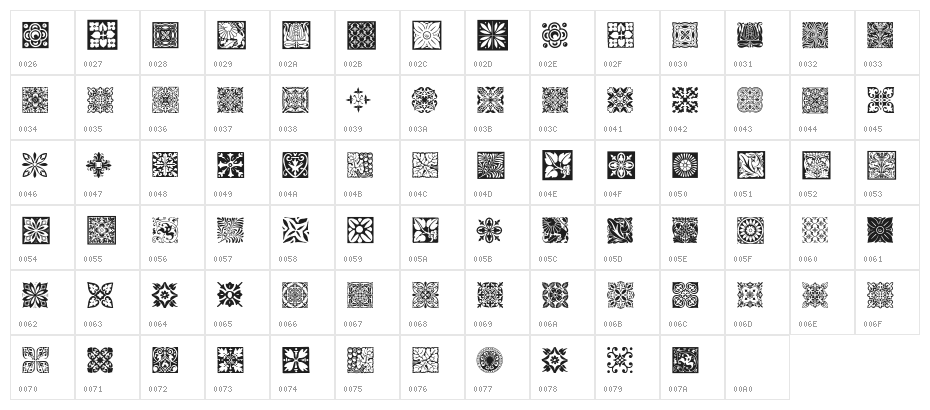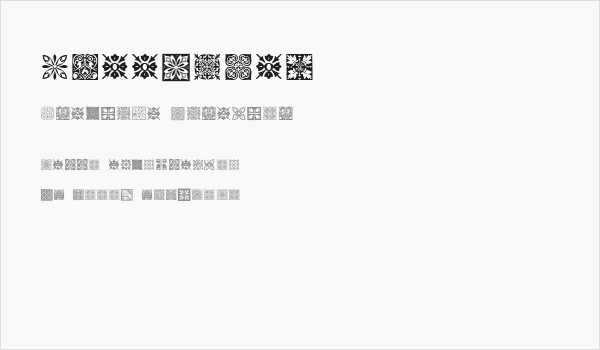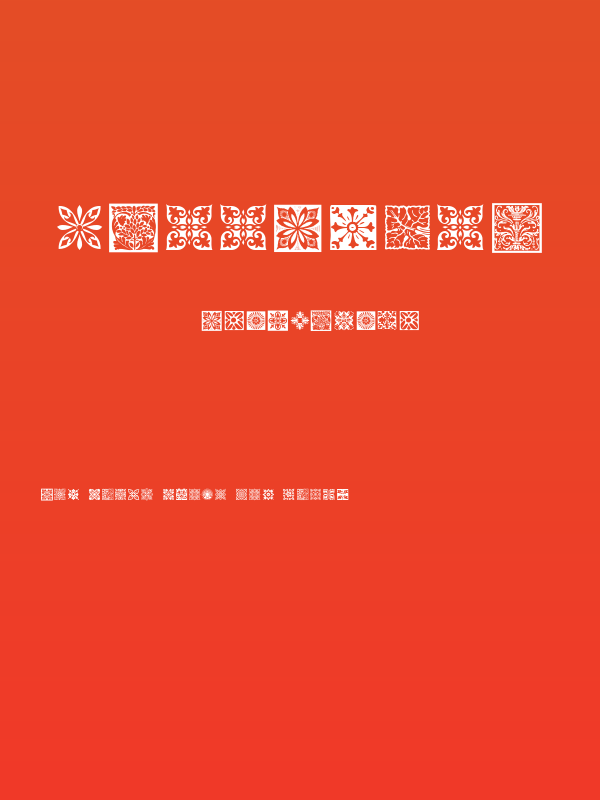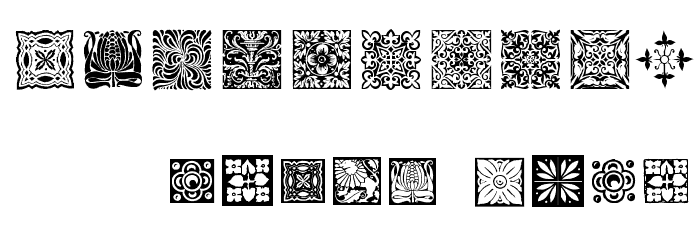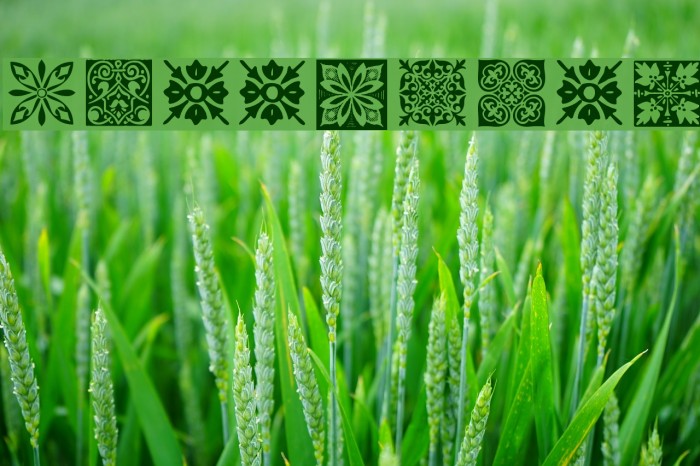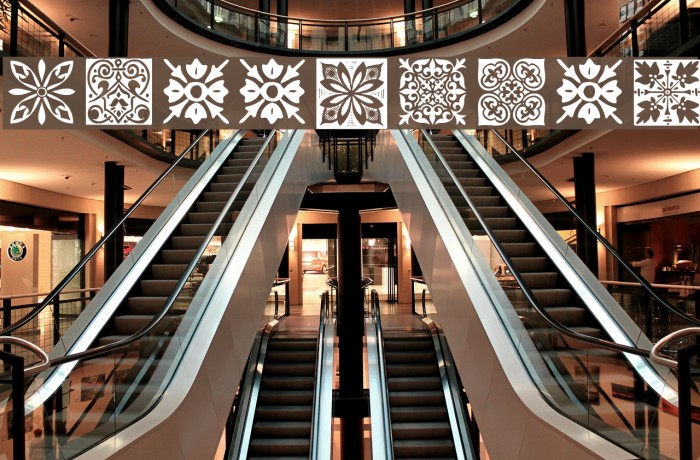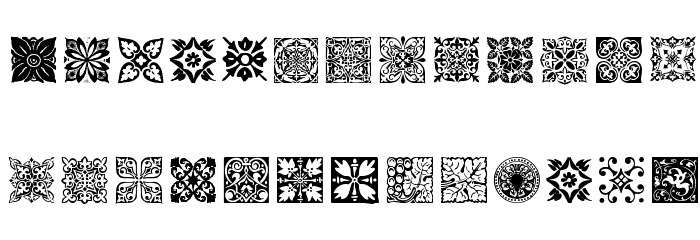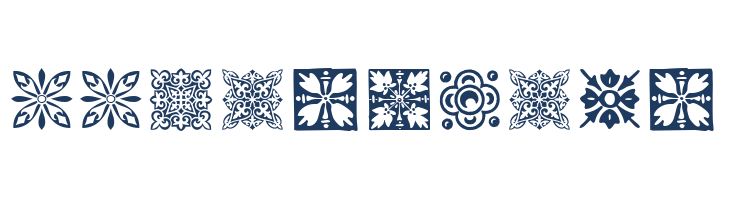
FreeTiles Font
FreeTiles Description
A decorative display set featuring intricate, ornamental tile patterns with high contrast between black and white, each glyph represented as a unique square motif inspired by traditional ceramic tiles.
| Overall Style | Decorative, Vintage, Ornamental |
| Use Case | Logos, Decorative elements, Borders, Pattern fills |
| Proposed Projects | Branding, packaging, invitations, posters, digital scrapbooking, decorative borders, and pattern creation. |